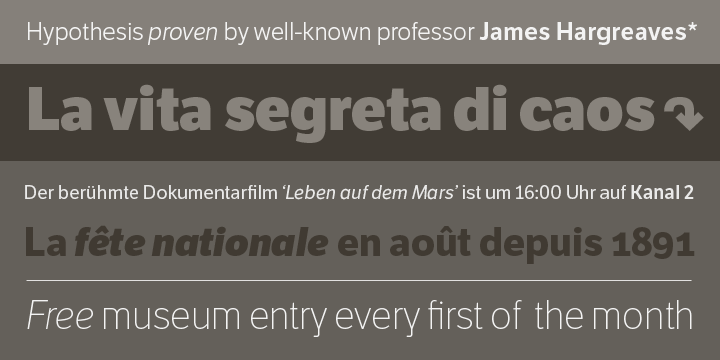
LFT Etica, the-moralist-typefamily-project, was born at the end of 2000, but its development is ongoing, overcoming many hurdles and diversions. The starting point for the designers at Leftloft were the common “cold” grotesk sans serifs, ubiquitous and often badly applied in their everyday visual environment. The challenge was to obtain the same force, versatility and color, but with a much warmer feel. The resulting design has soft strokes, open counters and terminals; aesthetically resting somewhere between a grotesque and humanist sans serif. It successfully combines masculine force with female delicacy. More…
LFT Etica’s wide range of styles, together with a large character set and OpenType features, such as 4 sets of numerals, fractions, several stylistic alternates and a set of arrows and dingbats, allows for a vast variety of applications, be they editorial or corporate.